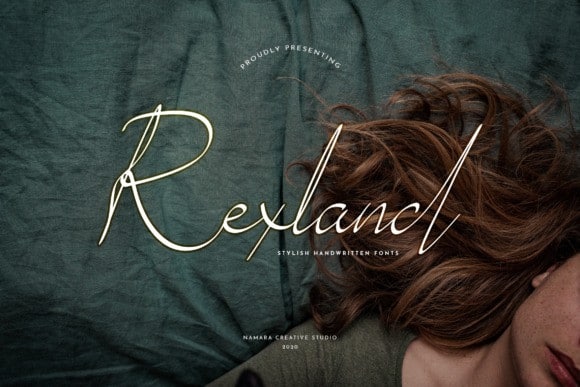
Rexland Handwritten Font
Rexland simplifies elegance into one truly outstanding handwritten font. This font will look outstanding in any context, whether it’s being used on busy backgrounds or as a standalone headline!
It comes with uppercase and lowercase characters, large set of punctuation glyphs, numerals, ligatures, cyrillic characters and multilingual support. Perfect for logos, greeting cards, product packaging, t-shirt, handwritten quotes and etc.